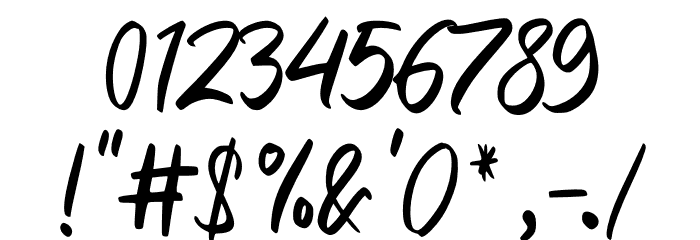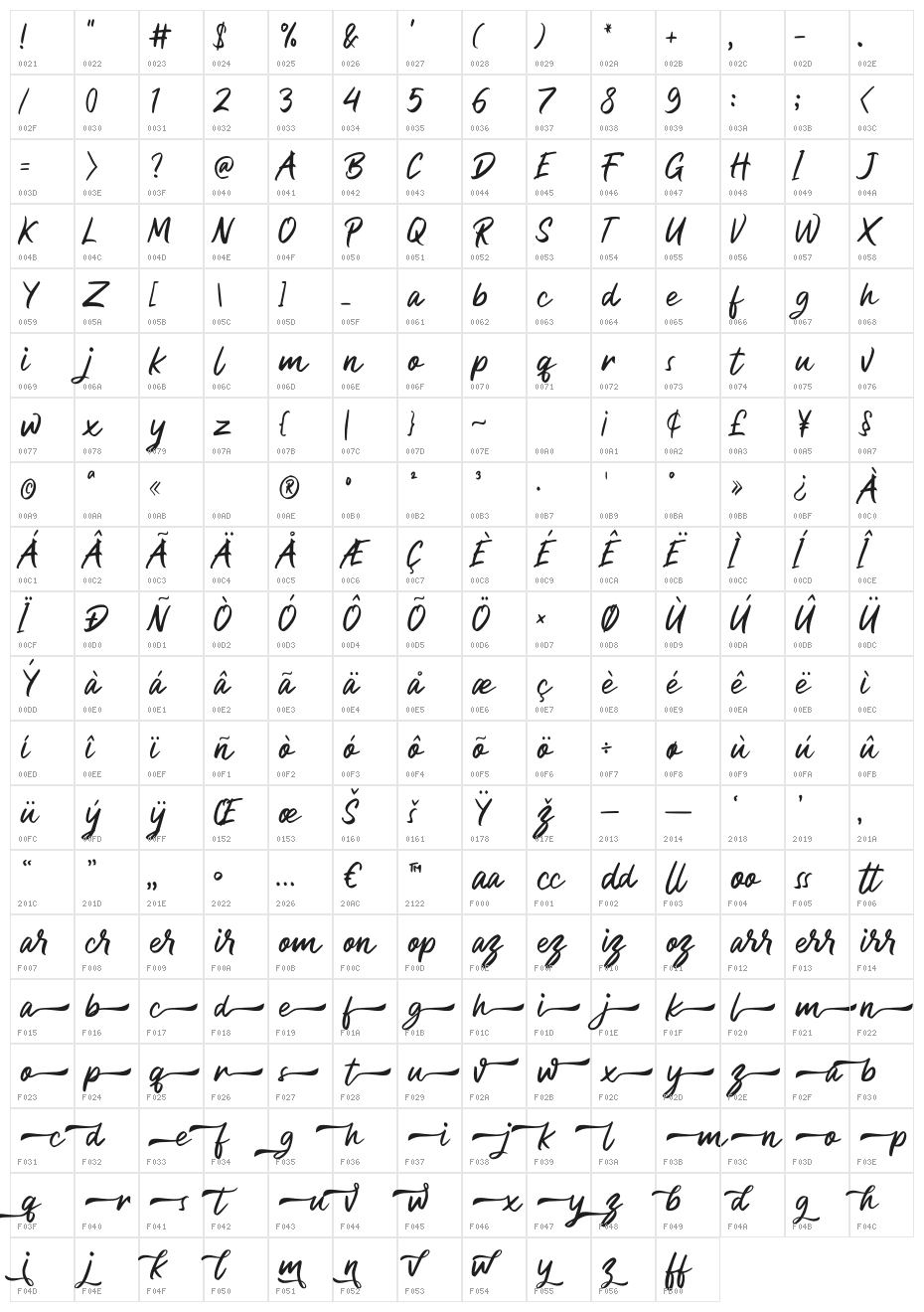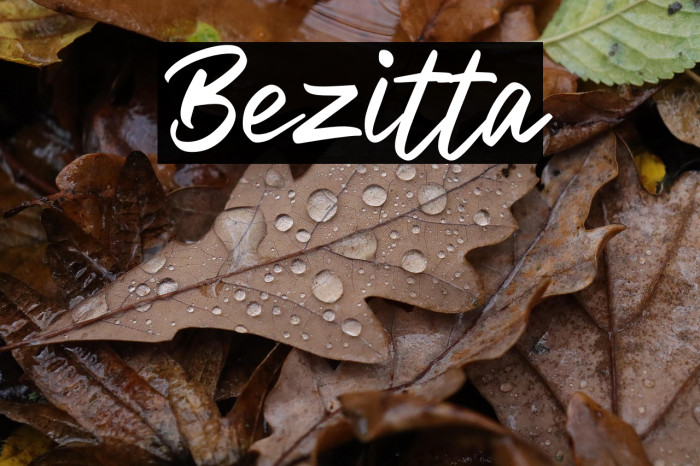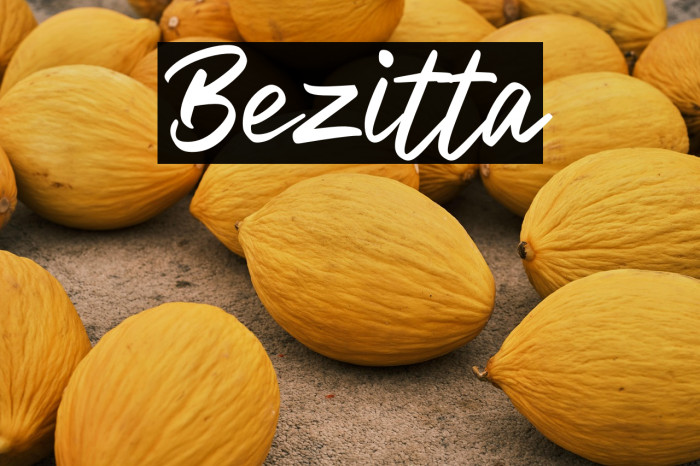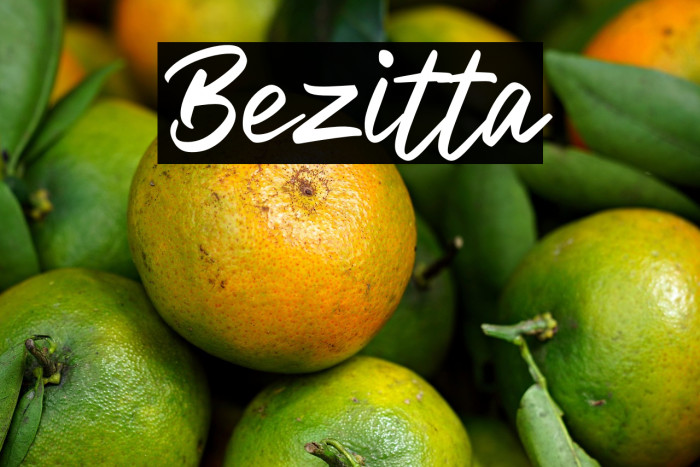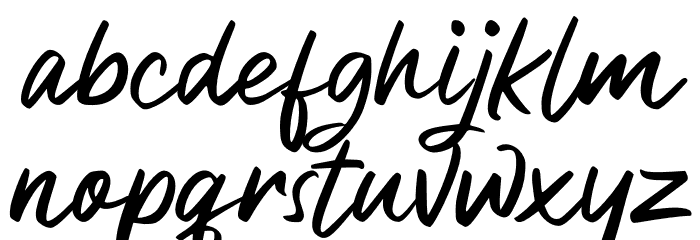
Bezitta Font
Bezitta Description
This font exudes a dynamic and energetic feel, characterized by its bold, flowing script style. The letters are crafted with a smooth, continuous stroke that mimics the fluidity of handwriting, giving it a personal and informal touch. The uppercase letters are slightly larger and more pronounced, while the lowercase letters maintain a consistent flow, enhancing readability. The numbers and special characters are designed to match the overall aesthetic, ensuring a cohesive look across all text. This font is ideal for projects that require a personal, handwritten touch, such as invitations, greeting cards, or branding materials.
| Proposed Projects | Ideal for invitations, greeting cards, branding, and personal projects. |